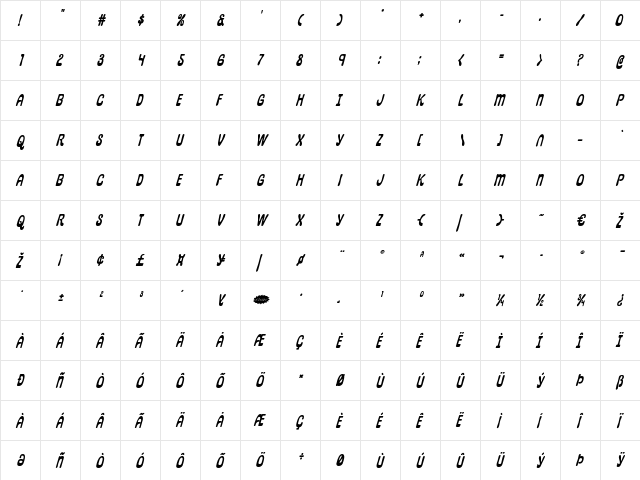
Pepperland Bold Italic Bold Italic
Design Context for Pepperland Bold Italic Typeface
Pepperland Bold Italic offers clean, dependable letterforms without strong stylistic allegiance, making it a practical choice for designers who need flexibility. The slanted form adds forward momentum and visual energy. The heavy weight commands attention and anchors typographic hierarchies.